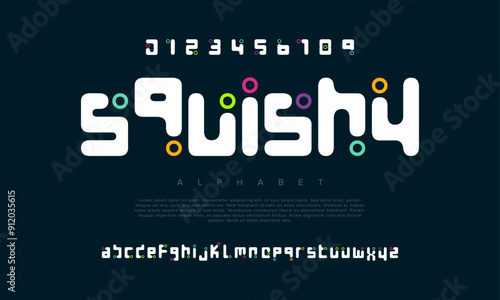
Squishy creative modern geometric urban alphabet font. Digital abstract futuristic, game, techno, robot, music, logo, sport, minimal technology typography. Simple numeric vector illustration